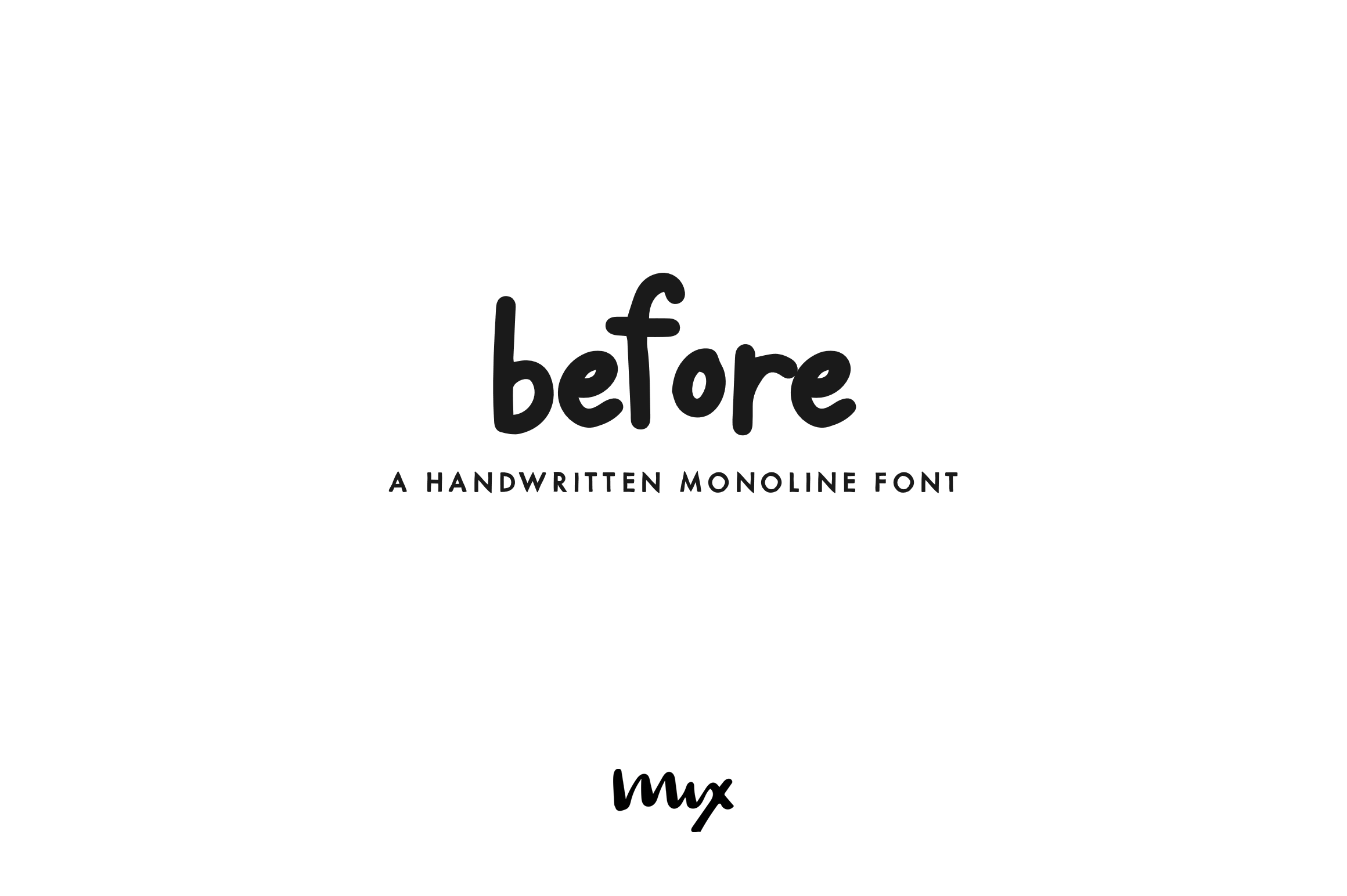
Mix Before is a handwritten monoline font. It's clean and simple, but still has all the charm of a handwritten font. It's perfect for DIY themed projects and designs.
The glyphs were all handwritten using the procreate brush Monoline (which can be found here: https://crmrkt.com/M642lK ) on an iPad Pro with an Apple Pencil. It was then converted into a font.